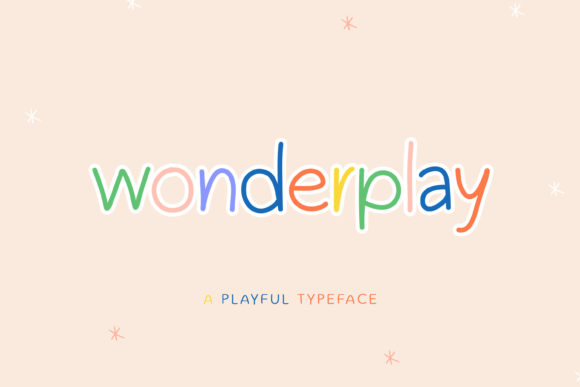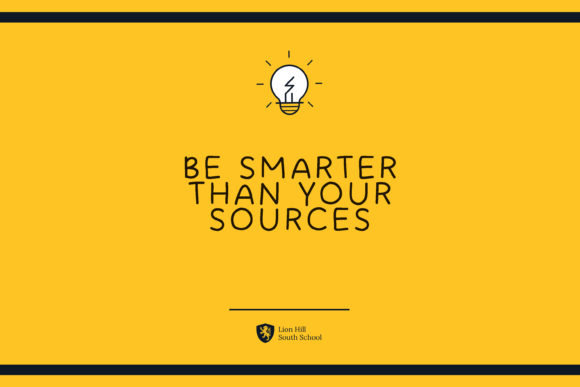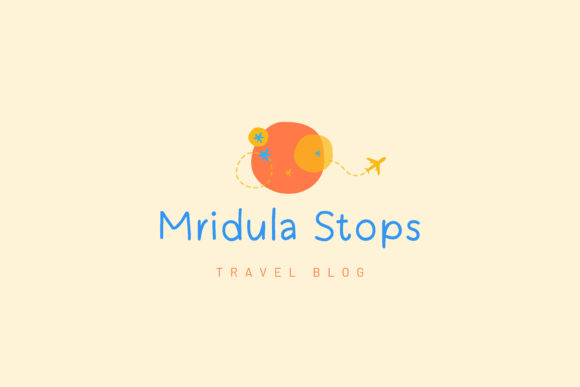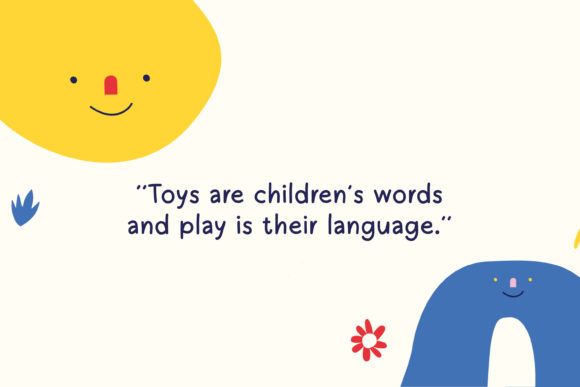
About Wonderplay Font
Introducing “Wonderplay,” a simple and playful handwritten font that is perfect for all your chalkboard quotes and teaching materials. Designed with a focus on simplicity and readability, this font is ideal for creating educational and child-themed designs.
With its clean and legible characters, “Wonderplay” is well-suited for use in classrooms, on chalkboards, or in any teaching material. Whether you’re creating lesson plans, worksheets, or educational posters, this font will add a touch of whimsy and fun to your designs.
The charm of “Wonderplay” lies in its playful and child-friendly aesthetic. The letters have a handwritten appearance, with slight irregularities and a sense of fluidity that captures the essence of youthful creativity. This font is a perfect match for children’s learning materials and designs that aim to engage and inspire young minds.
When combined with bright and vibrant colors, “Wonderplay” truly comes to life. Use it to create eye-catching and visually appealing designs that capture the attention of children and make learning a fun experience. Whether it’s a colorful alphabet poster or a cheerful worksheet, this font will add an element of joy and playfulness to your educational resources.
“Wonderplay” is not only suitable for teaching materials but also for various children-themed designs. Use it to create invitations for birthday parties, playful greeting cards, or whimsical posters. Its simplicity and versatility make it an excellent choice for any design project that targets a young audience.
The readability of “Wonderplay” ensures that children can easily read and understand the text. The clear letterforms and well-defined strokes make it easy for young learners to recognize and connect with the content. This font is designed to facilitate an enjoyable reading experience for children.
So, unleash your creativity with “Wonderplay” and let it add a touch of playfulness and creativity to your chalkboard quotes, teaching materials, and children-themed designs. With its simple yet charming style, this font will make learning fun and engaging for young minds.
Get inspired by the simplicity and whimsy of “Wonderplay” and create designs that captivate the imaginations of children. Let the joy and playfulness of this font shine through in every project, bringing smiles and sparking curiosity along the way.